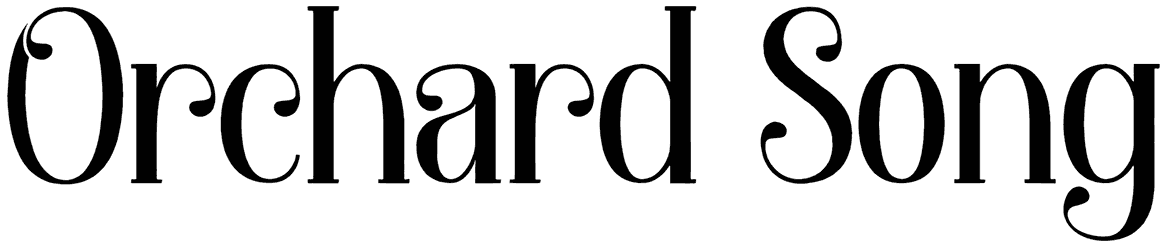
Orchard Song Font
Orchard Song is a retro font with an old look, whose twists are reminiscent of Roman fonts. It’s designed based on serif fonts with modern twists. It can be an effective way to advertise and stay attuned to customer needs.
Using this beautiful and powerful wedding font, there will be no excuse for customers to leave the website, and you can showcase the most important aspects of your brand through advertising banners and logos.
Orchard Song is a decorative serif font for a wide variety of designs.
Also its perfect for musical theme or musical instrument design!